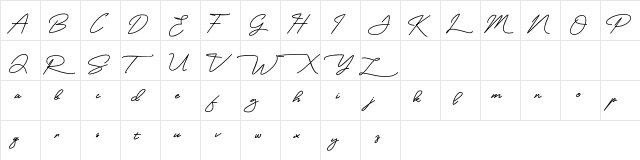
MangoSign Regular Font Preview
MangoSign Regular
Design Context for MangoSign Typeface
MangoSign is a composed and adaptable typeface that performs quietly and consistently across a wide range of design contexts.